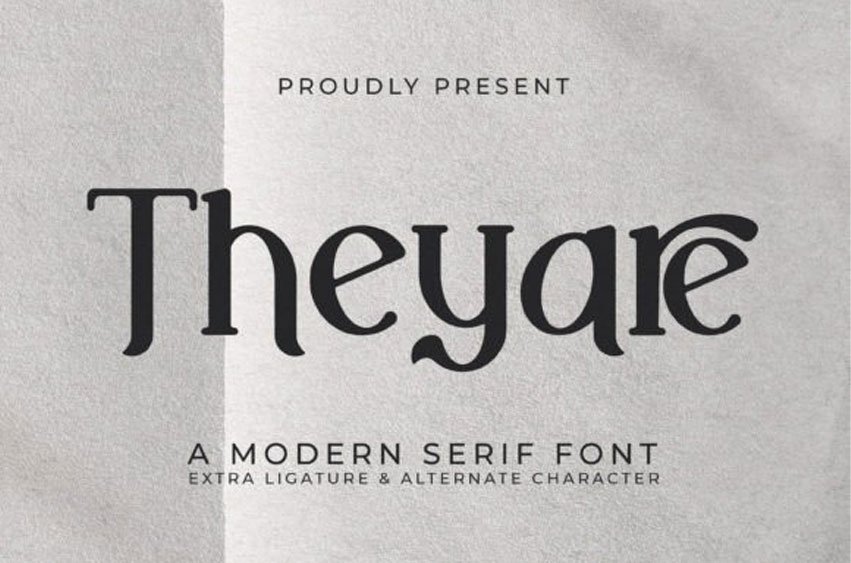
Theyare Font is an elegant serif font, that features a very delicate and classy look. Not too thin and not too thick, balanced and varied.
Theyare was designed to enhance the beauty of your projects.